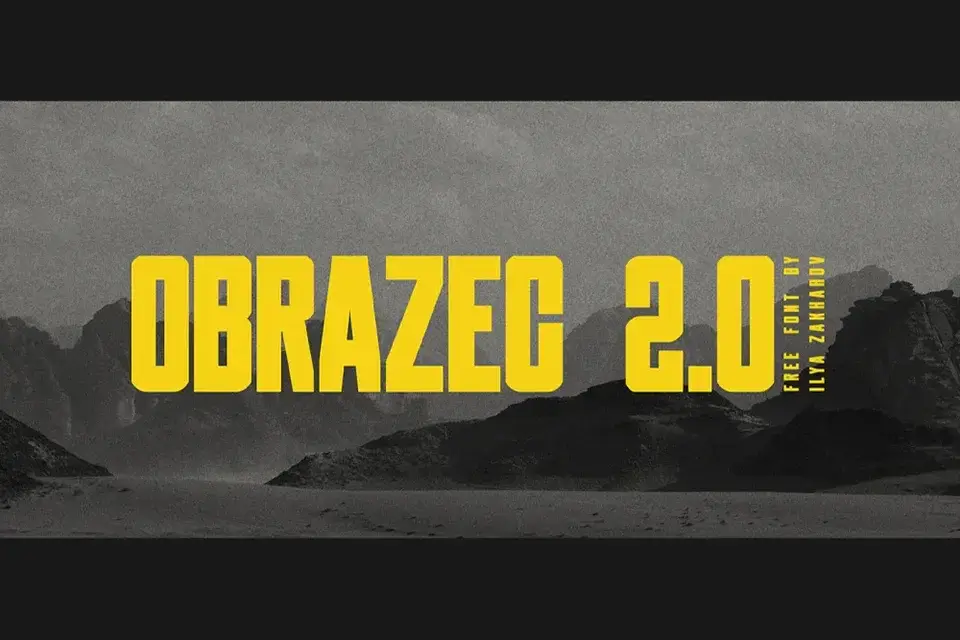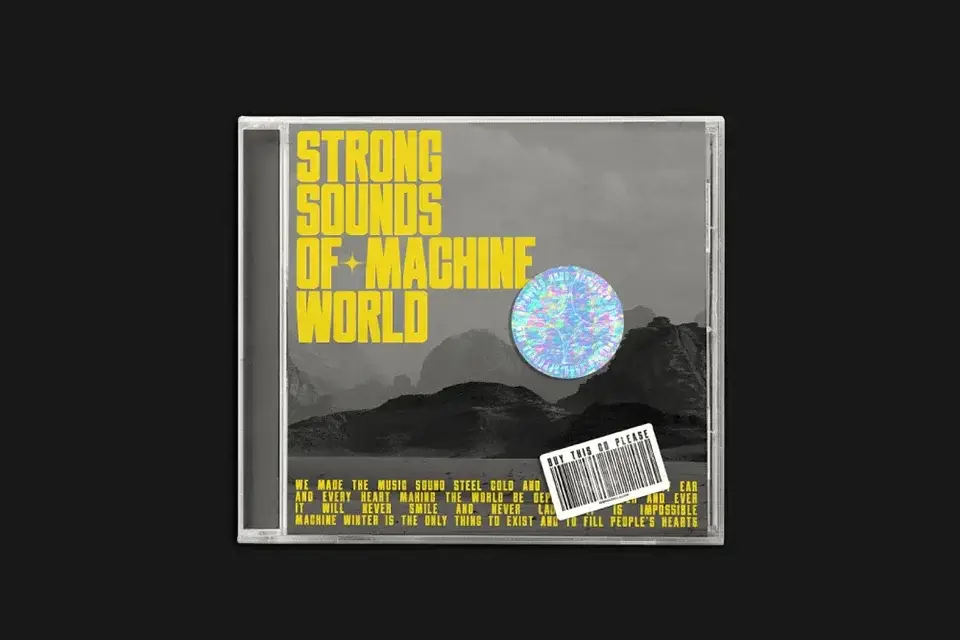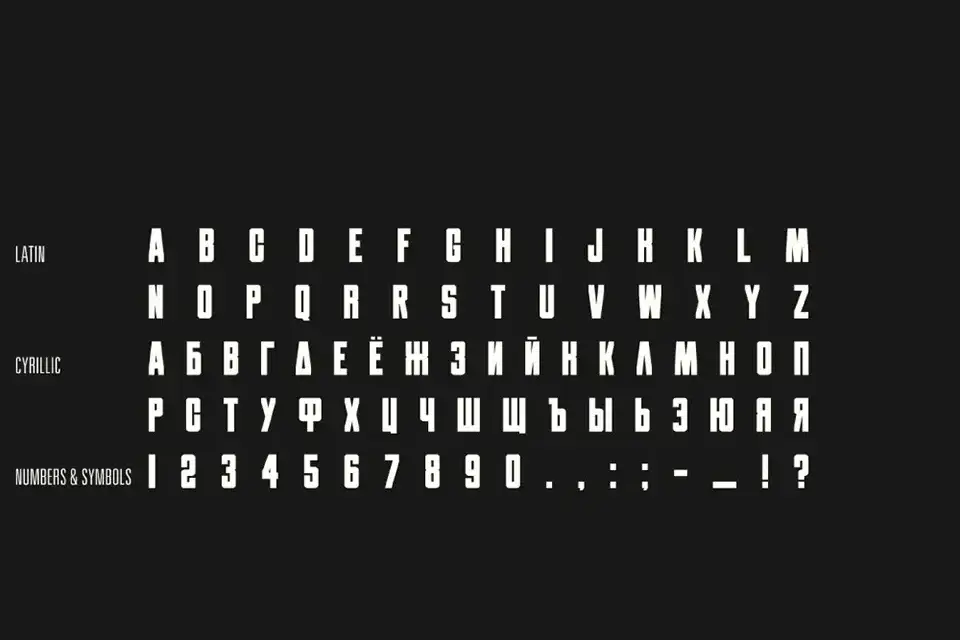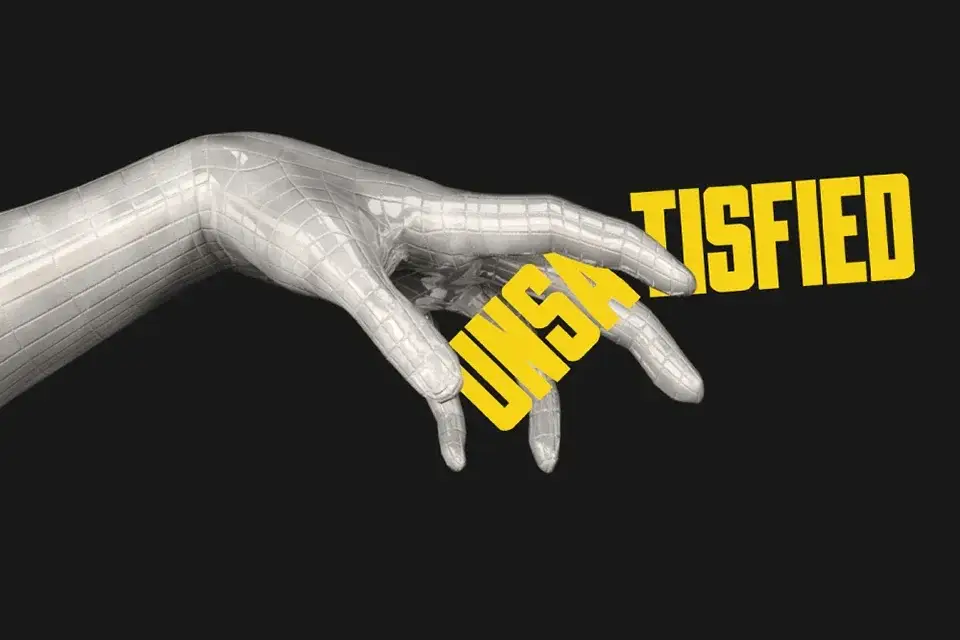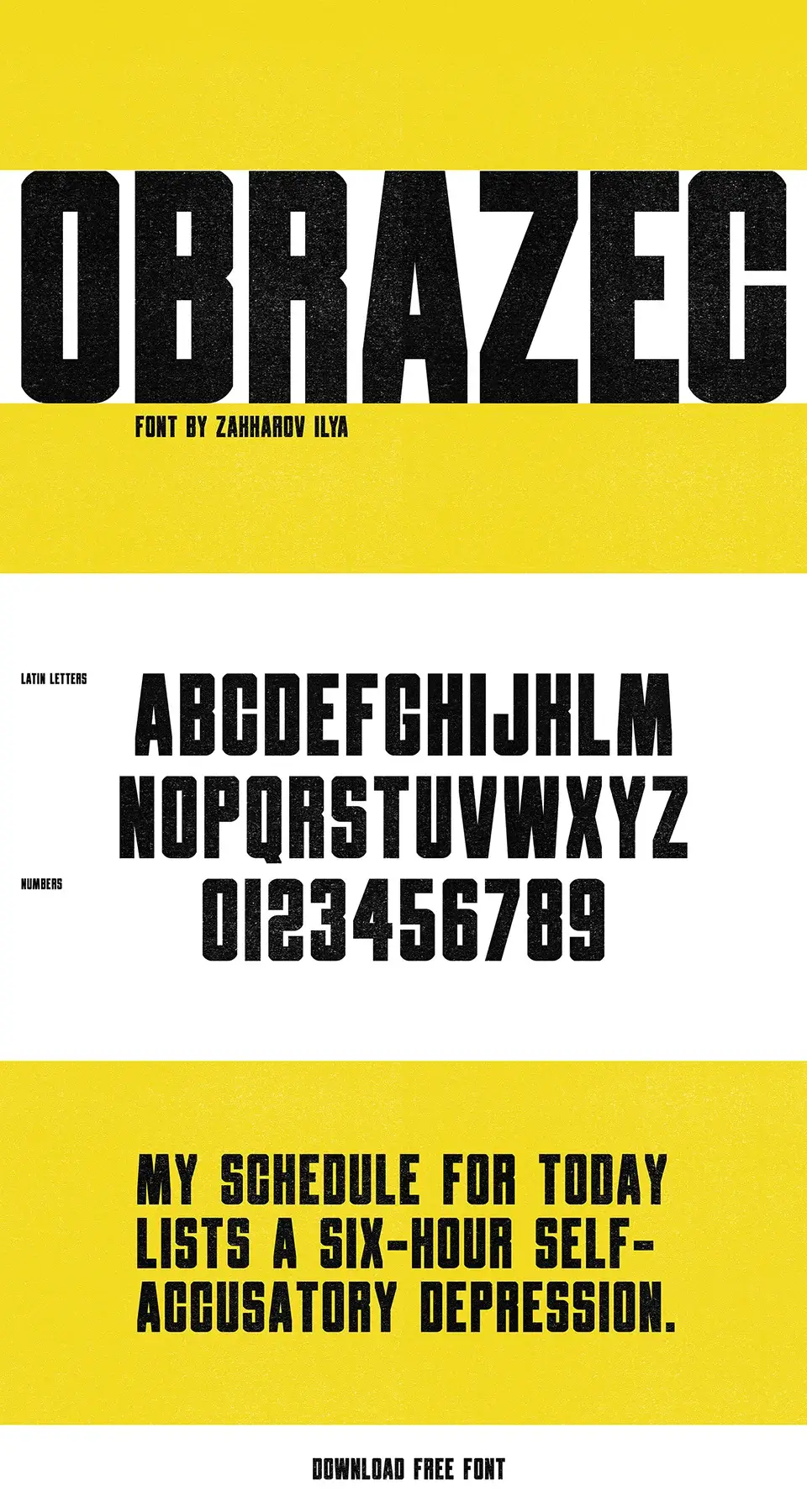
Obrazec 2.0 Font
Obrazec 2.0 Font is a striking bold industrial display typeface designed by Ilya Zakharov. This updated version of the original Obrazec font supports both Latin and Cyrillic scripts, making it versatile for various design projects. Ideal for headlines, posters, album covers, and logos, Obrazec 2.0 stands out with its strong, condensed appearance, ensuring that your text commands attention. Its modern aesthetic and unique character set make it suitable for both personal and commercial use, allowing designers to create impactful visuals across multiple mediums.
Bold industrial design: Eye-catching and strong presence.
Supports Latin and Cyrillic scripts: Versatile for diverse audiences.
Alternate characters: Offers design flexibility.
Who created the Obrazec 2.0 font?
The font was created by designer Ilya Zakharov.
What types of projects is Obrazec 2.0 suitable for?
It is ideal for headlines, posters, logos, album covers, and various design projects.
Does Obrazec 2.0 support multiple languages?
Yes, it supports both Latin and Cyrillic scripts, making it suitable for a wide range of languages.